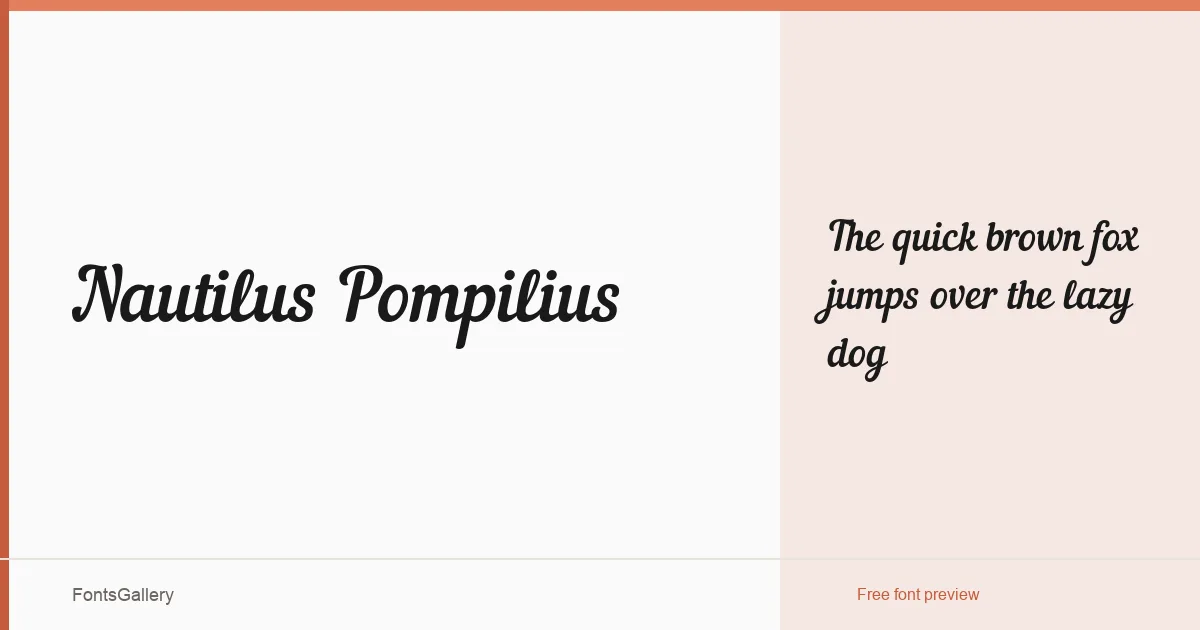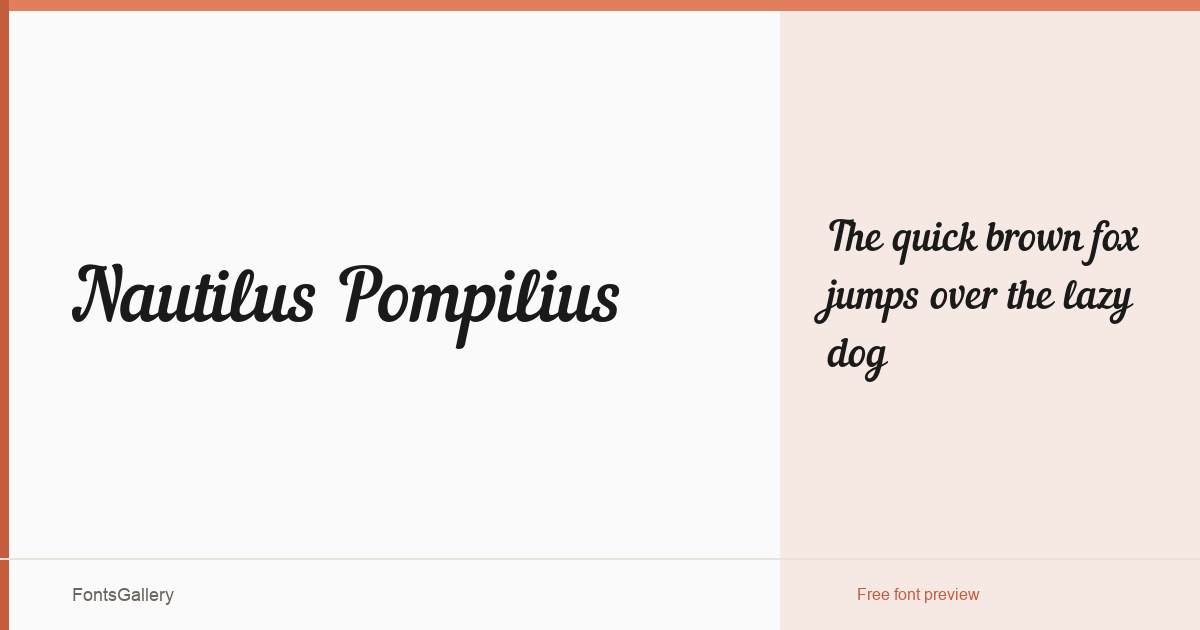
About Nautilus Pompilius Font
Nautilus Pompilius is an elegant script typeface that evokes a sense of vintage romance and timeless sophistication. With its classic aesthetic, this font brings a graceful, handcrafted quality to any design project. Its flowing letterforms make it a distinguished choice for creatives seeking a refined and expressive typographic voice.
Rooted in the script tradition, Nautilus Pompilius features sweeping, connected letterforms that exude elegance and romantic charm. Its vintage-inspired character gives each glyph a sense of warmth and artistry, reminiscent of classic penmanship and ornate calligraphy. The overall impression is one of polished, old-world beauty that feels both timeless and distinctive.
Nautilus Pompilius shines in applications that call for a touch of elegance and personality, making it ideal for logos, posters, branding identities, social media graphics, and greeting cards. Its romantic, vintage tone pairs especially well with clean, modern typefaces to create striking visual contrast — consider combining it with Aresink or Helvetica for a balanced and sophisticated typographic composition.